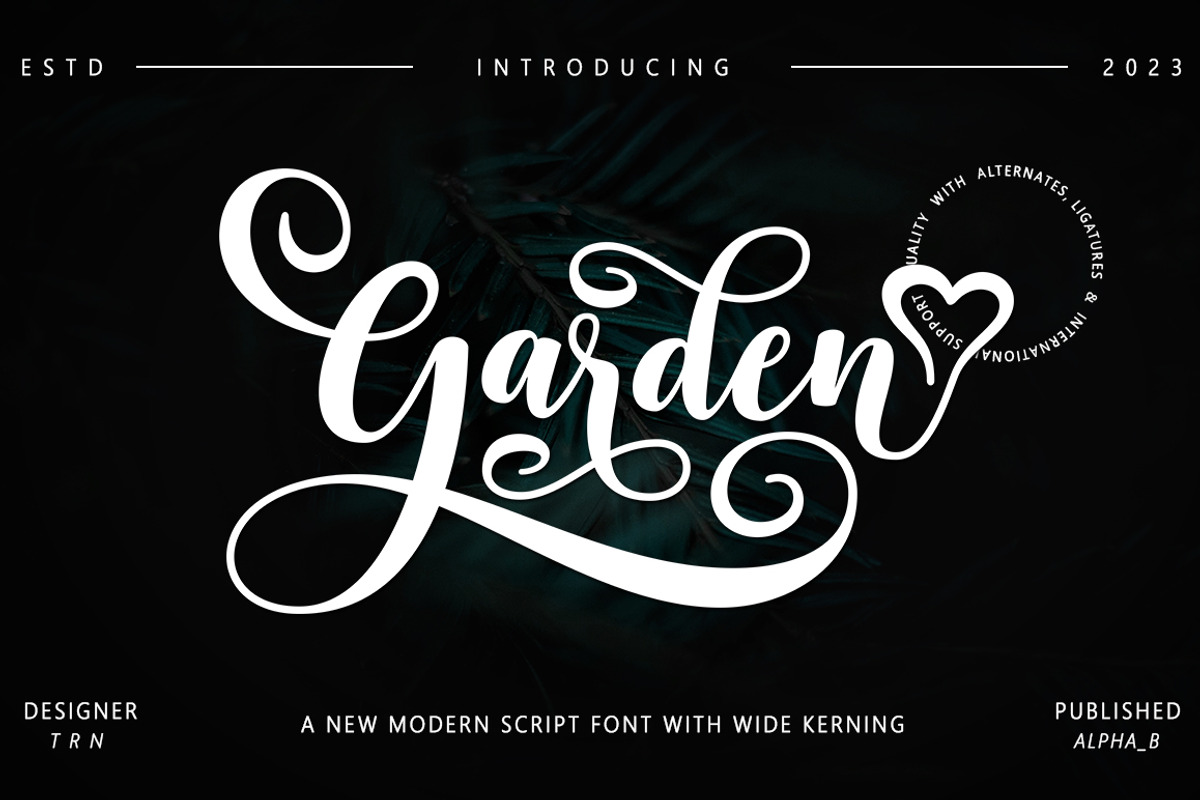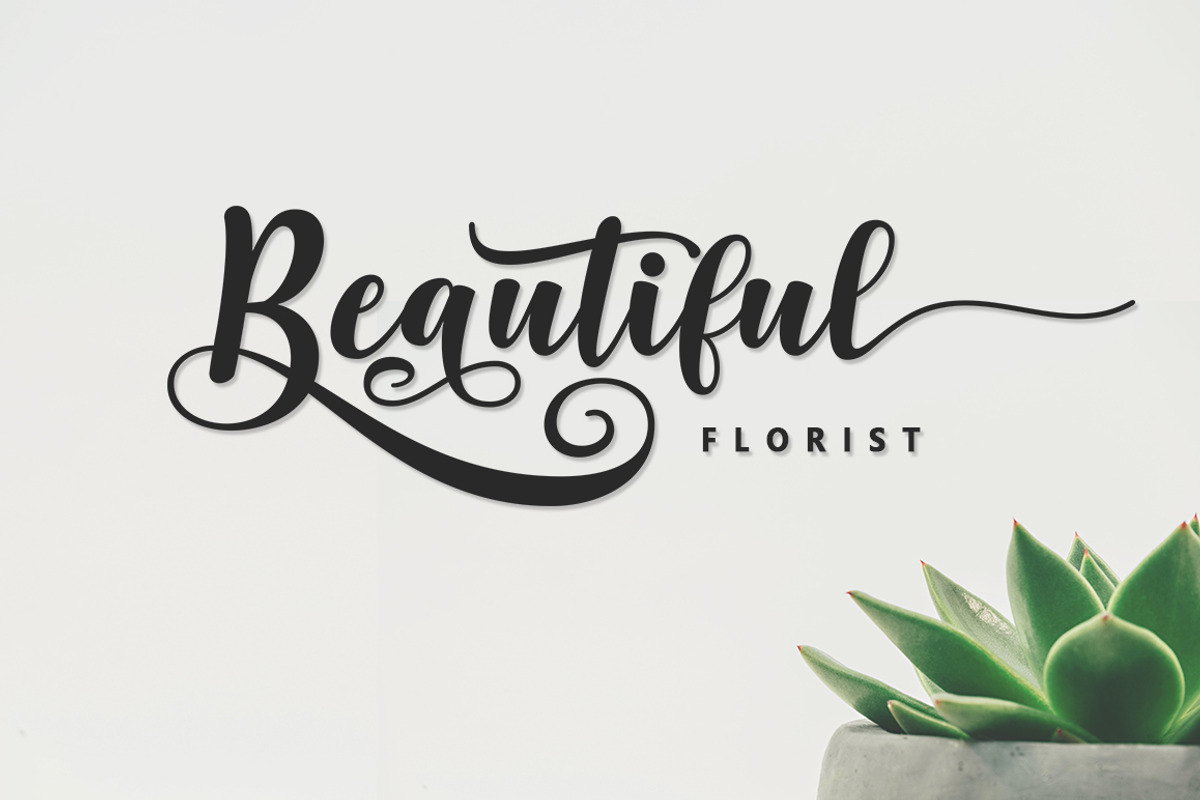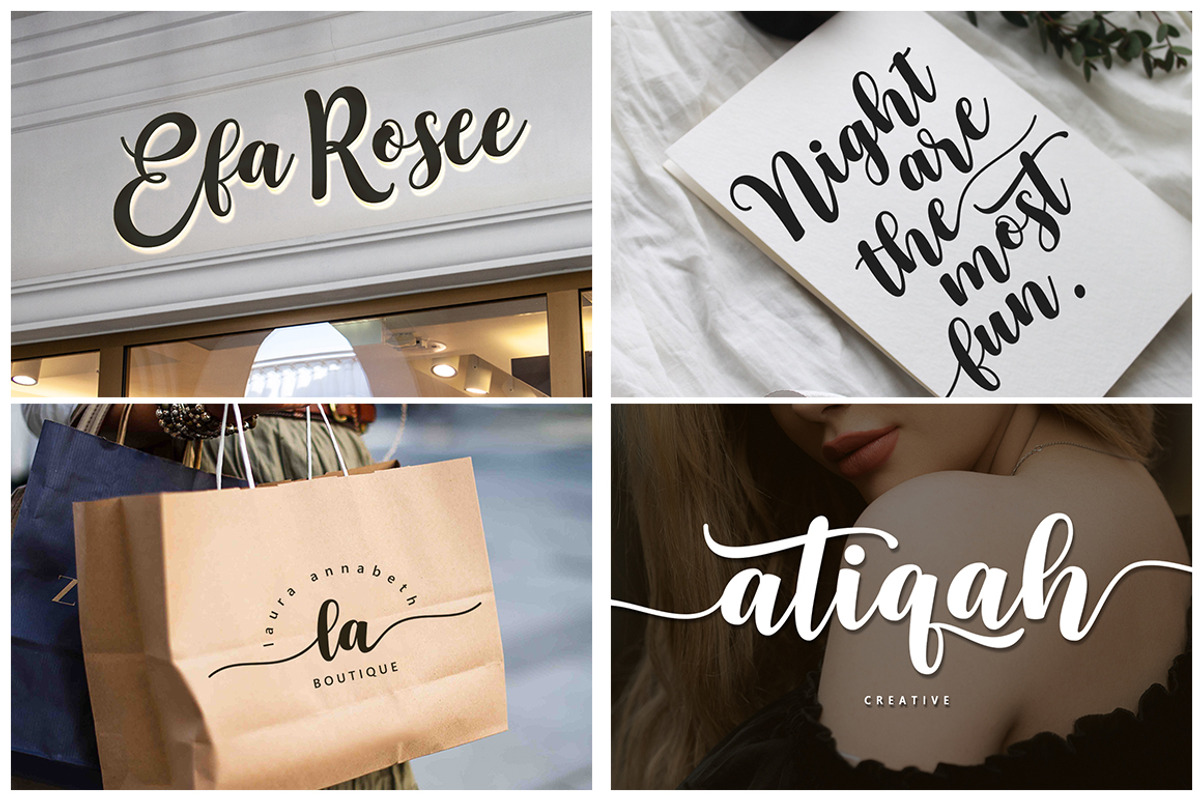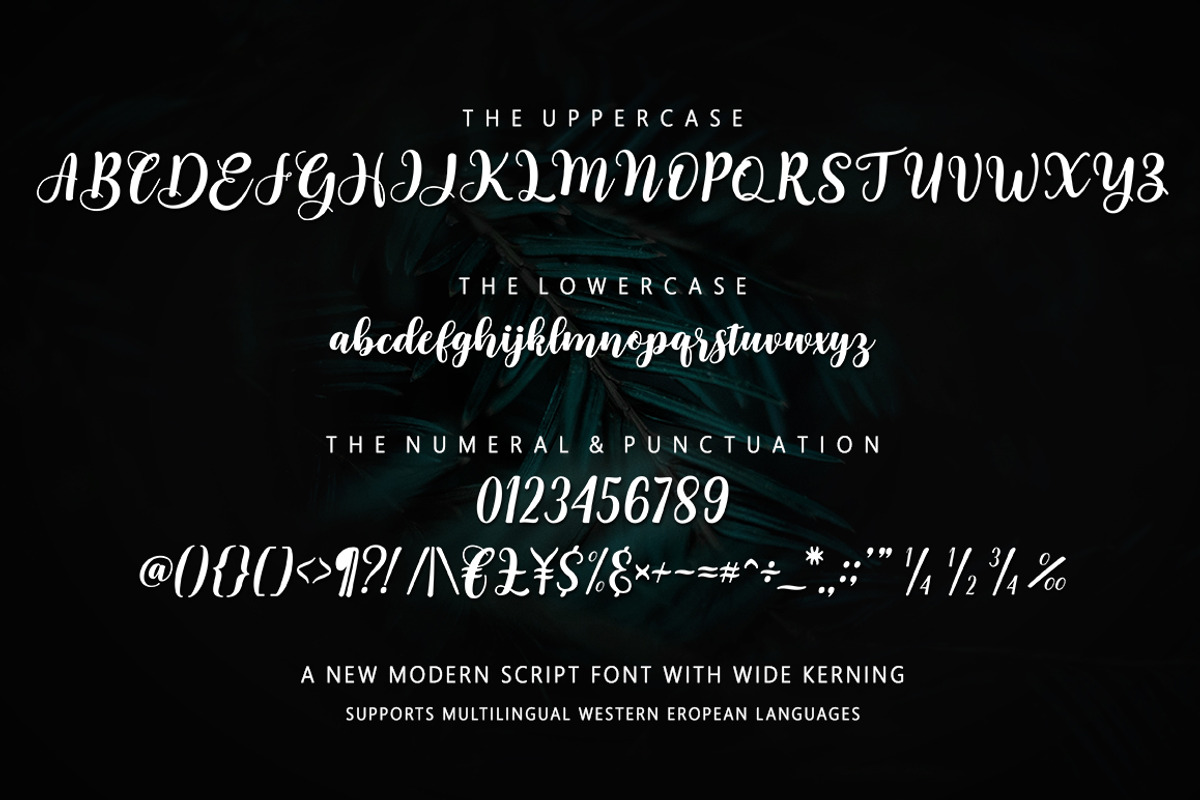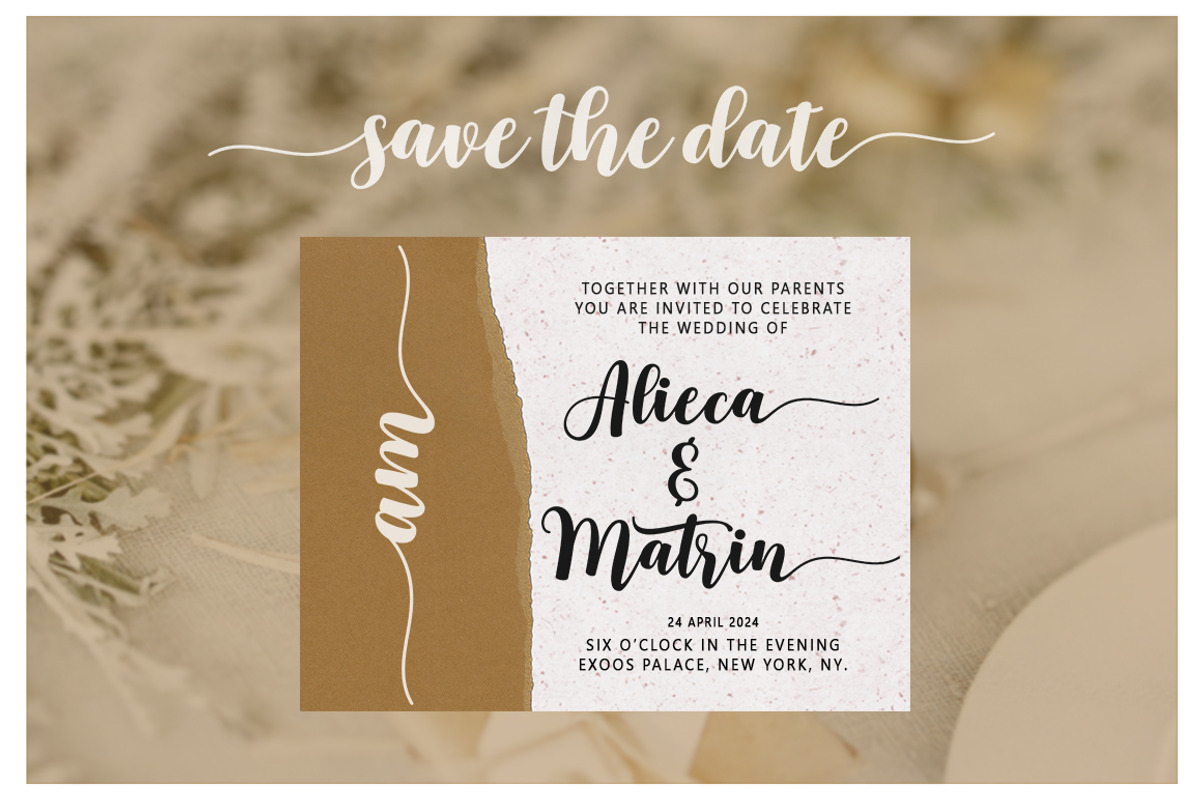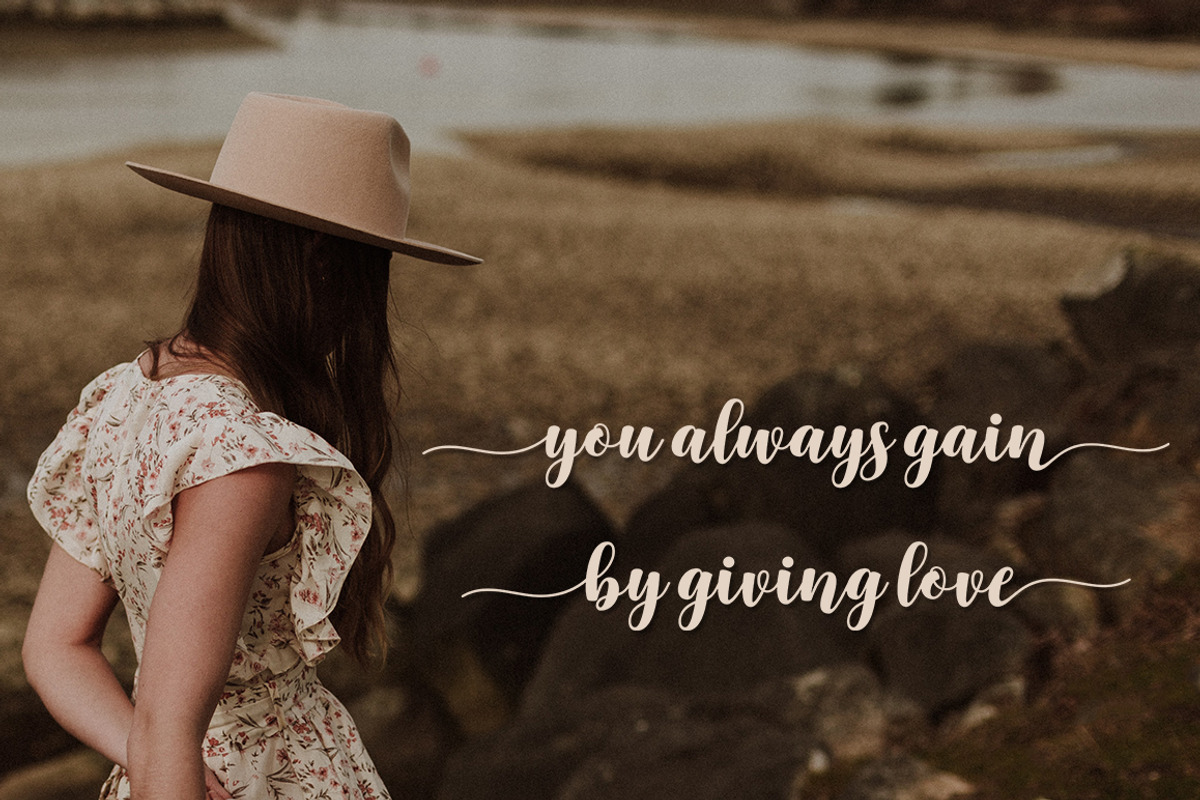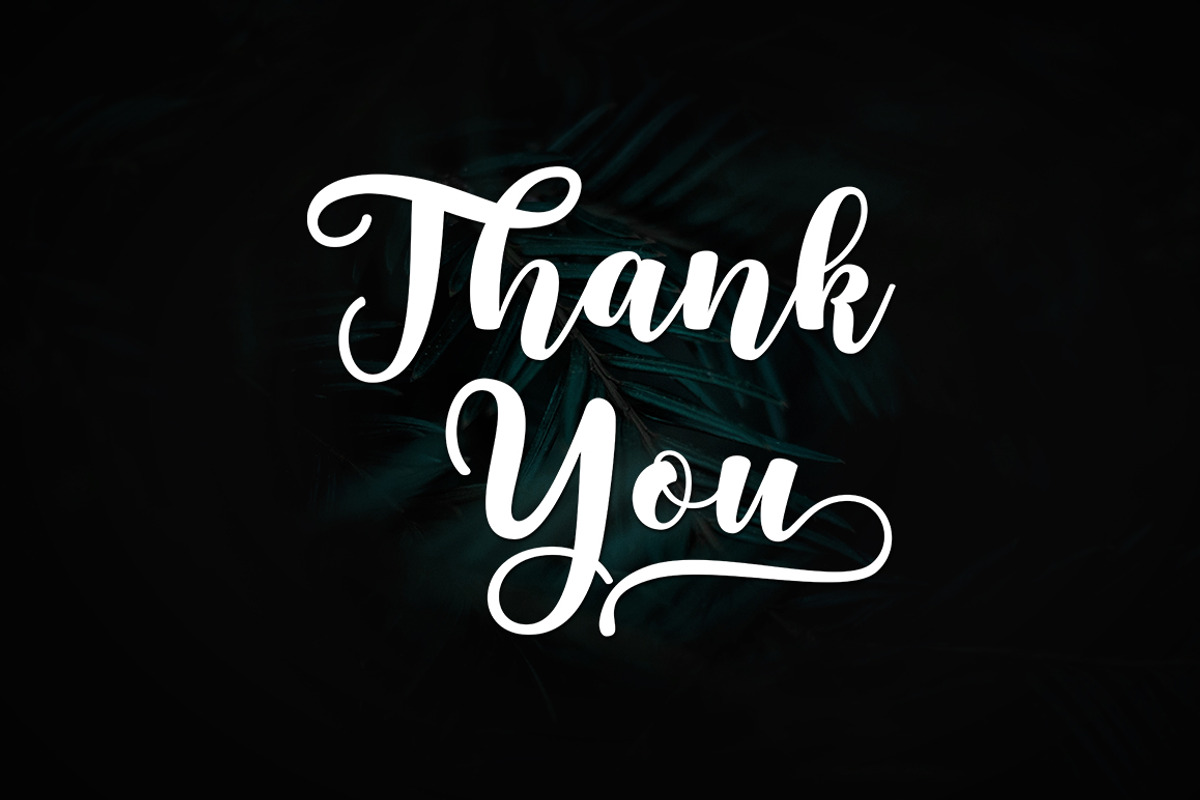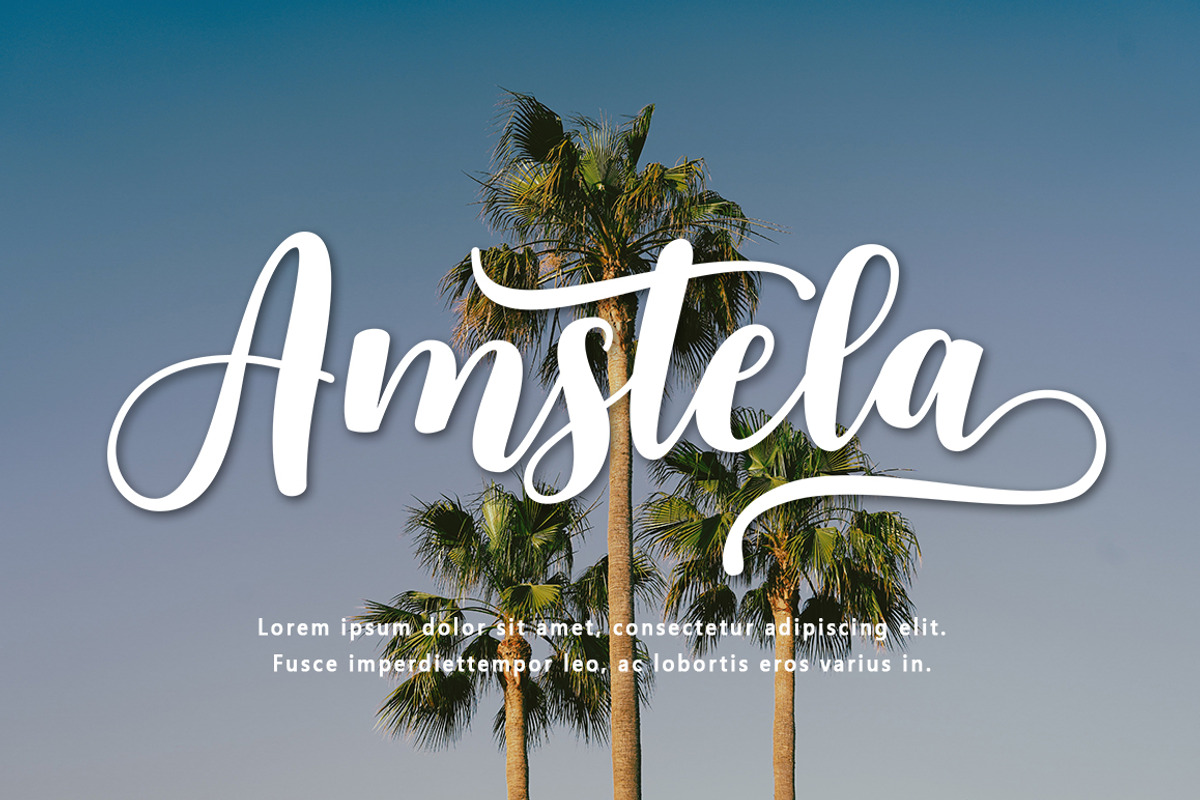
Garden
Garden Script is a calligraphy font. This is a modern bold font style. Here you will get a beautiful modern font. This font is available in several modern swirls that can make your work look elegant, sweet and perfect.
Garden Script has 420+ glyphs included alternative, ligatures characters and various language support.